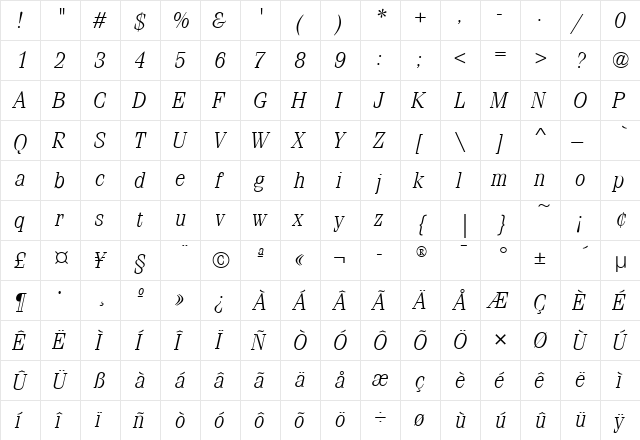
FeniceLightITC Italic
Design Context for FeniceLightITC Typeface
FeniceLightITC is a composed and adaptable typeface that performs quietly and consistently across a wide range of design contexts. The dynamic lean of this cut emphasises speed and emphasis in any layout. Its slender proportions lend an understated elegance to any composition.